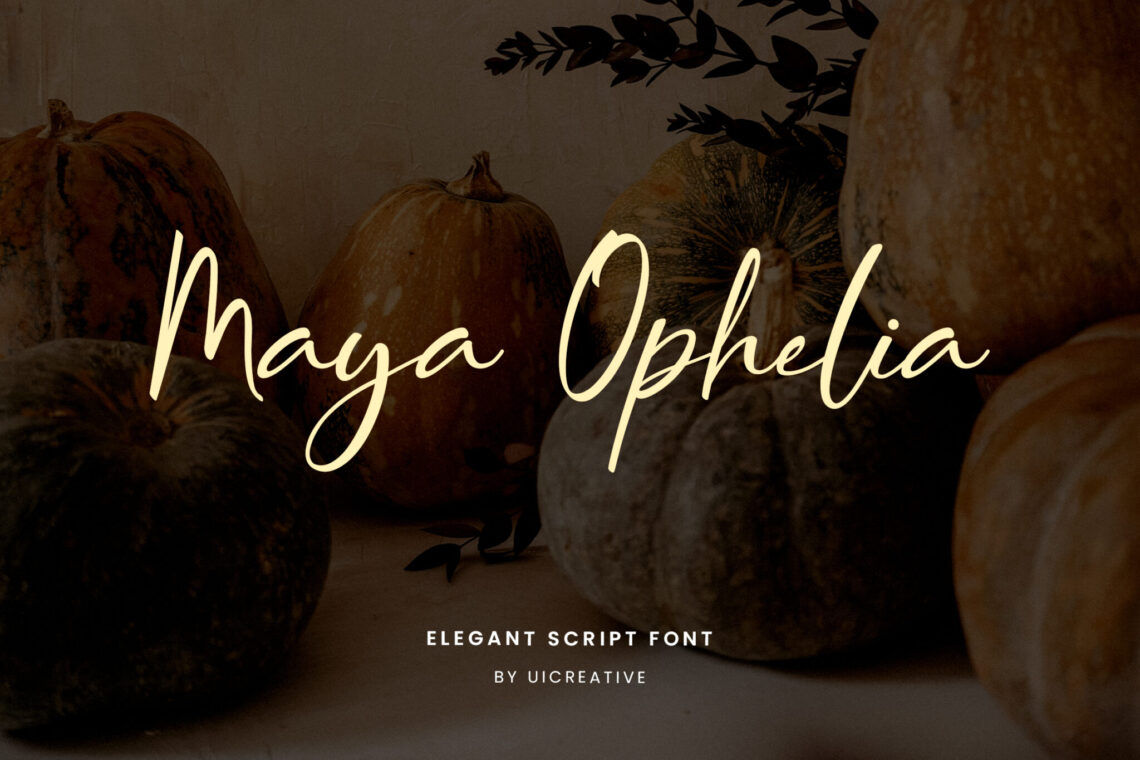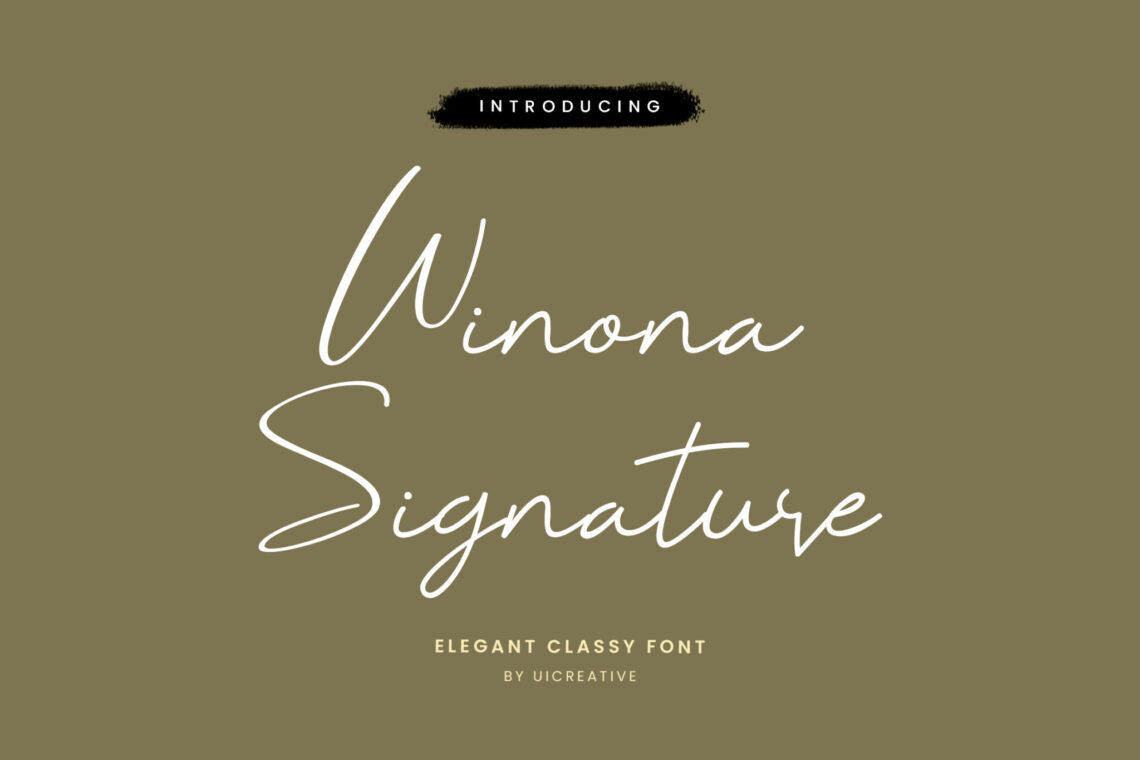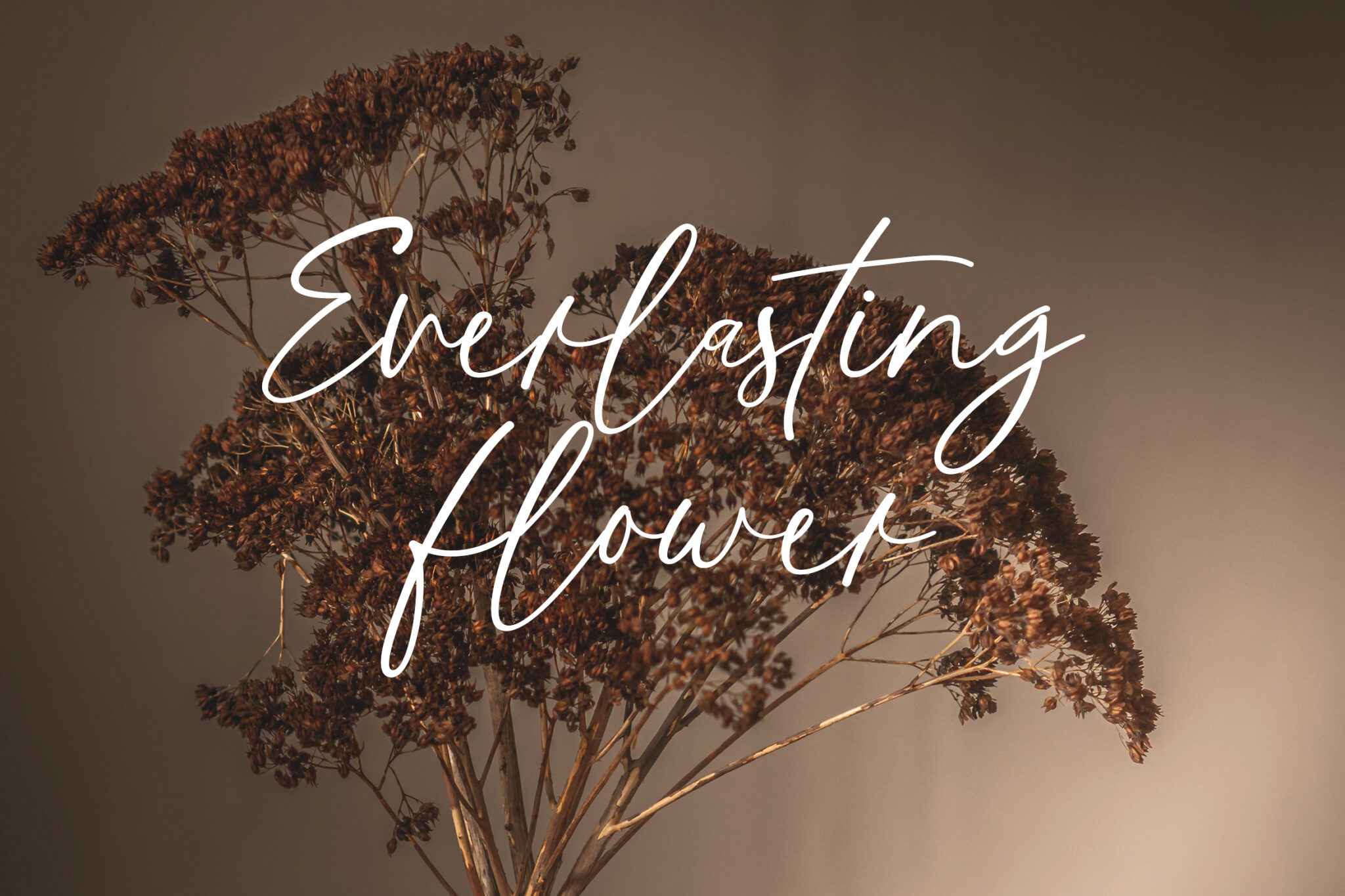
Why Handwriting Fonts Are Popular on Font Online Platforms?
In the digital age, typography has become more expressive than ever. Among the wide variety of typefaces available, handwriting fonts have emerged as a favorite, especially across various font online platforms. These fonts add a personal and human touch to digital designs, making them perfect for branding, creative content, and personal projects.
Below, we explore why handwriting fonts are so popular, their design impact, use cases, and how to choose the right one from a font online source.
1. The Emotional Impact of Handwriting Fonts
Maya Ophelia Signature Font
Handwriting fonts are unique because they mimic the fluid, imperfect lines of human writing. This gives them a warm, authentic, and emotionally resonant feel. Unlike rigid, mechanical typefaces, handwriting fonts communicate friendliness, creativity, and individuality.
This emotional connection is why many designers and content creators turn to handwriting fonts when they want to express sincerity, storytelling, or artistic personality.
2. Why Font Online Platforms Highlight Handwriting Fonts
Winona Signature Font
Most font online libraries, like Google Fonts, Creative Market, and DaFont, feature hundreds of handwriting fonts—often in their most downloaded or trending sections. Why? Because they are versatile, eye-catching, and ideal for informal or creative applications such as social media posts, logo design, invitations, and lifestyle branding.
These platforms understand that users are often looking for fonts that don’t feel too corporate or generic. Handwriting fonts answer that demand by offering styles that range from elegant scripts to messy doodles, allowing designers to reflect human emotion and uniqueness in their work.
3. Popular Uses of Handwriting Fonts
Diantha Wocasta Handwritten Signature Font
Handwriting fonts can be seen across many design niches. Some of the most common uses include:
• Personal Branding: For influencers, bloggers, or artists who want their content to reflect their personal voice.
• Event Invitations: Especially for weddings, birthdays, or creative events, where a formal serif just doesn’t feel right.
• Children’s Books or Educational Material: To create a playful and friendly atmosphere.
• Product Packaging: Especially for handmade, artisanal, or lifestyle products where authenticity matters.
• Digital Quotes & Social Media Graphics: To emphasize personal, expressive messages.
4. Choosing the Right Handwriting Font Online
thunderstone handwritten signature font 6
When browsing a font online site for handwriting fonts, it’s important to keep your design goals in mind. Here are some tips:
• Legibility First: Make sure the font is readable, especially if used in a paragraph or small text.
• Match the Mood: Some handwriting fonts feel romantic, while others feel casual or fun. Align the tone with your message.
Also, test the font in your actual design before finalizing it. A handwriting font may look great in the preview but might not suit your layout or audience needs.
5. Top Handwriting Fonts to Explore Online
Willmard Valiant Signature Font
If you’re just getting started, here are a few highly rated and versatile handwriting fonts you can find on popular font platforms:
• Pacifico: A bold and playful cursive font, ideal for branding and headlines.
• Dancing Script: Elegant yet casual, often used in wedding designs.
• Shadows Into Light: A clean and friendly handwritten font perfect for informal documents.
• Amatic SC: A quirky all-caps handwriting font, commonly used in poster design.
• Homemade Apple: Looks like real pen-on-paper, ideal for personal or lifestyle projects.
These fonts are available for download from various font online repositories, often with multiple style weights or alternates for customization.
Conclusion
Handwriting fonts have found a lasting place in the digital design world, largely due to their expressiveness and human appeal. Thanks to font online platforms, accessing and experimenting with these fonts is easier than ever. Whether you’re building a personal brand, creating heartfelt messages, or simply adding a touch of personality to your design, handwriting fonts offer the charm and flexibility you need.
So next time you’re looking for a unique typeface, explore a font online library—you just might find the perfect handwritten touch your project needs.